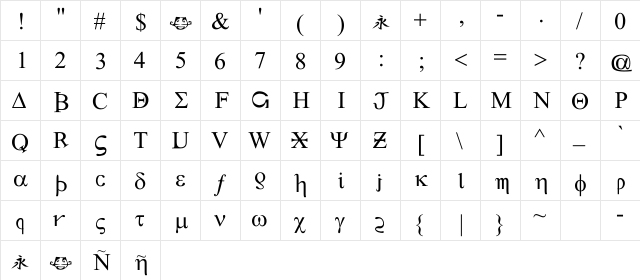
Greekie Regular
| Foundry | High-Logic |
| Designer | David Donald |
Design Context for Greekie Typeface
Greekie offers clean, dependable letterforms without strong stylistic allegiance, making it a practical choice for designers who need flexibility.